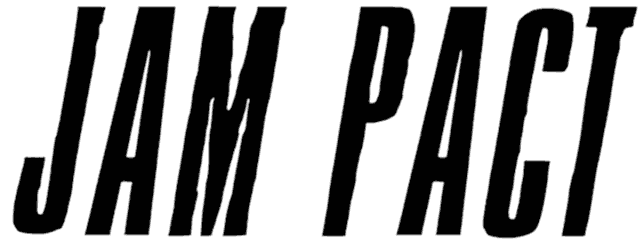
Jam Pact font can give power and speed to your simple texts in a few seconds. This sans serif font is a good font for logo designs and posters, and it is perfect for many brands of cars and racing events.
Even though it does not support small letters, it is still one of the best with two styles. The font can be used for virtually any purpose under the sun.